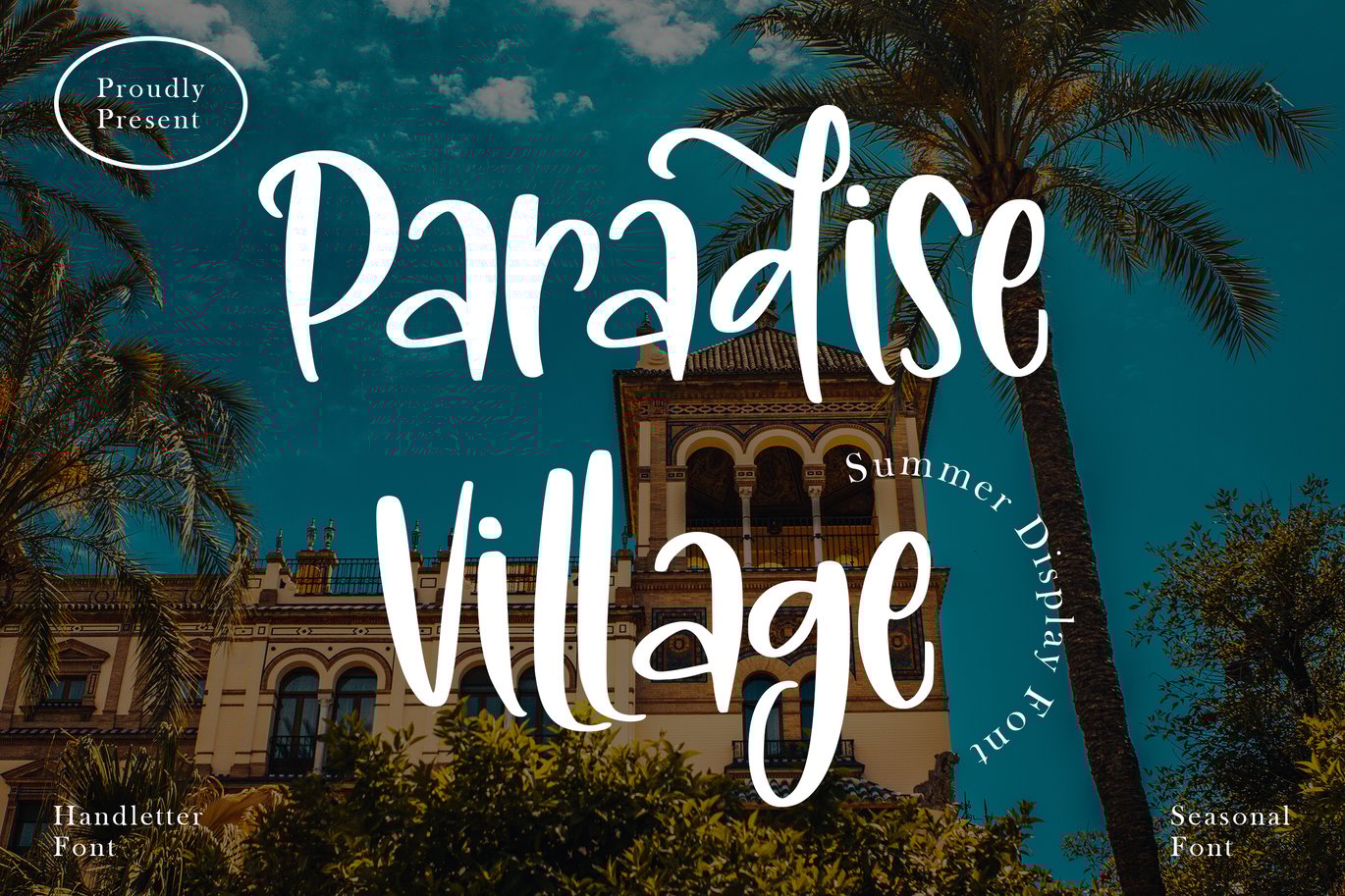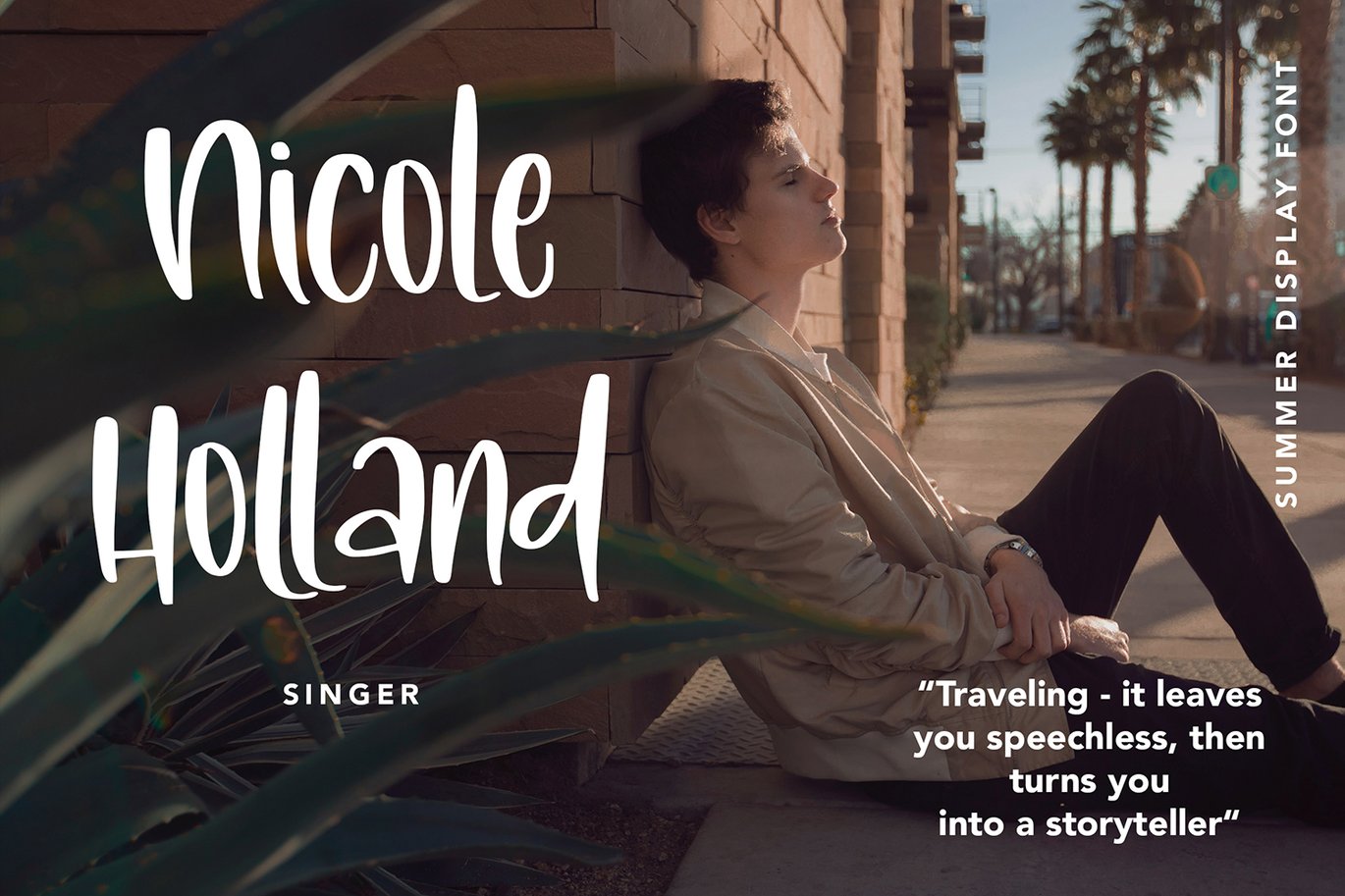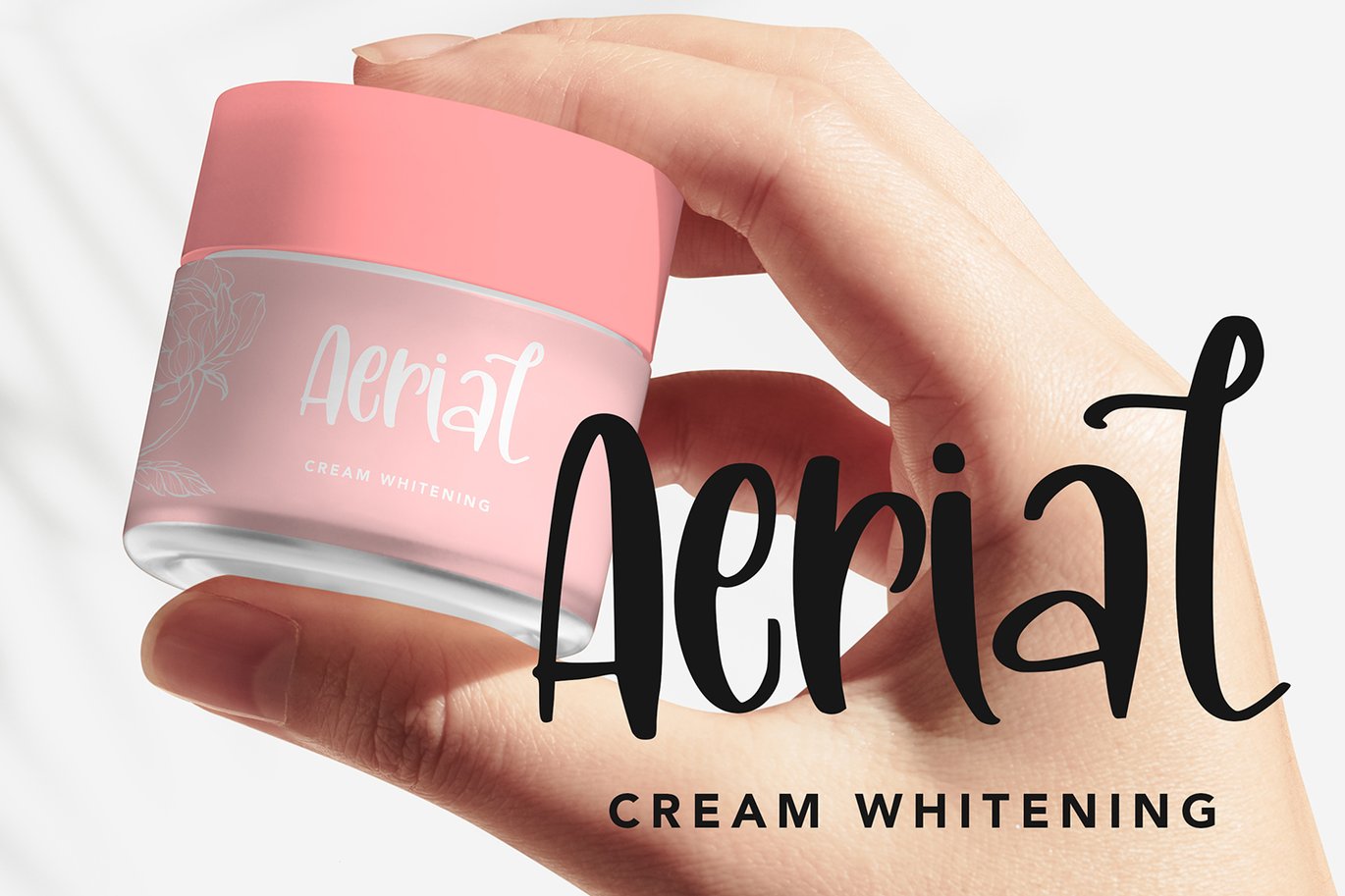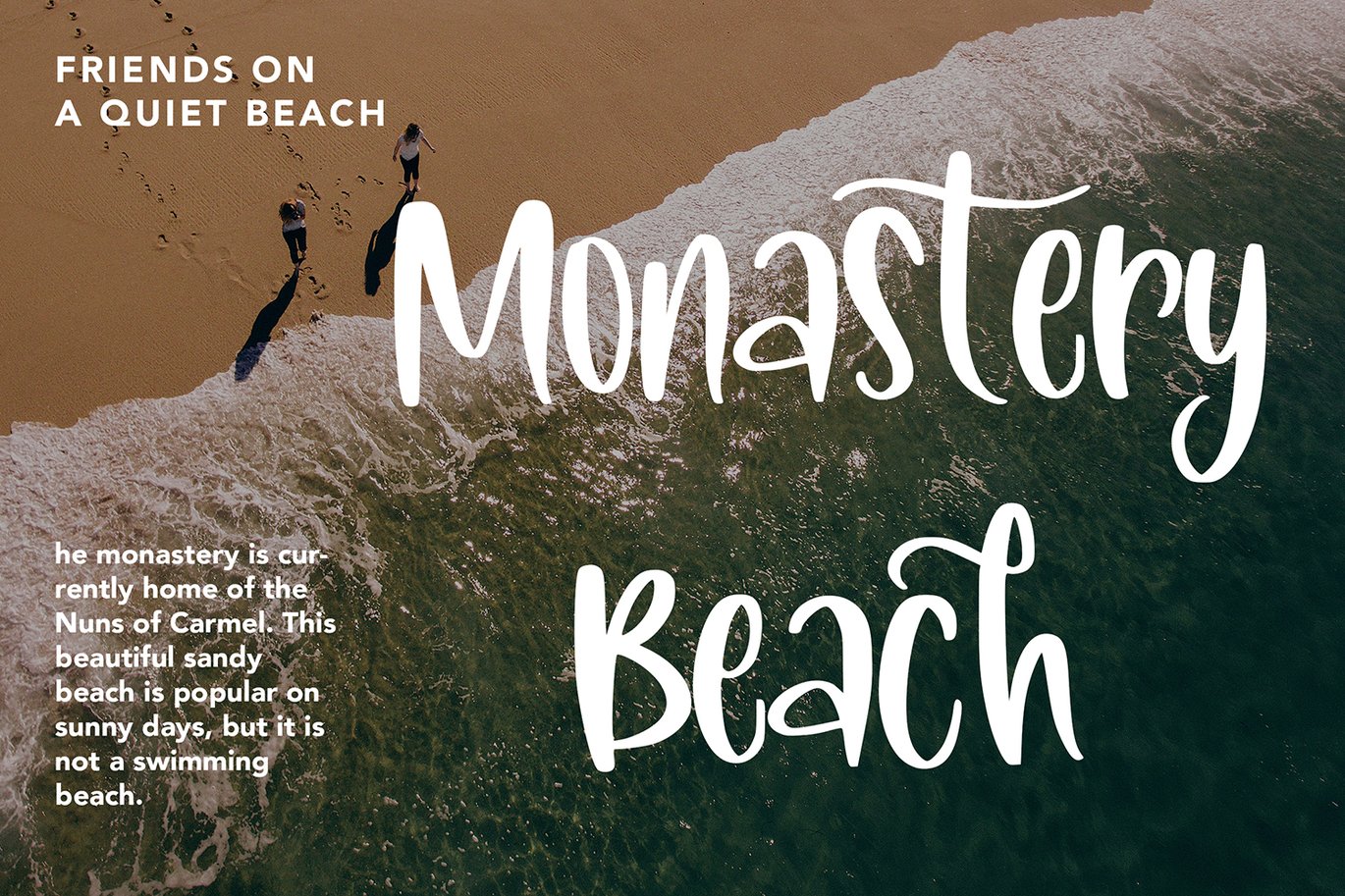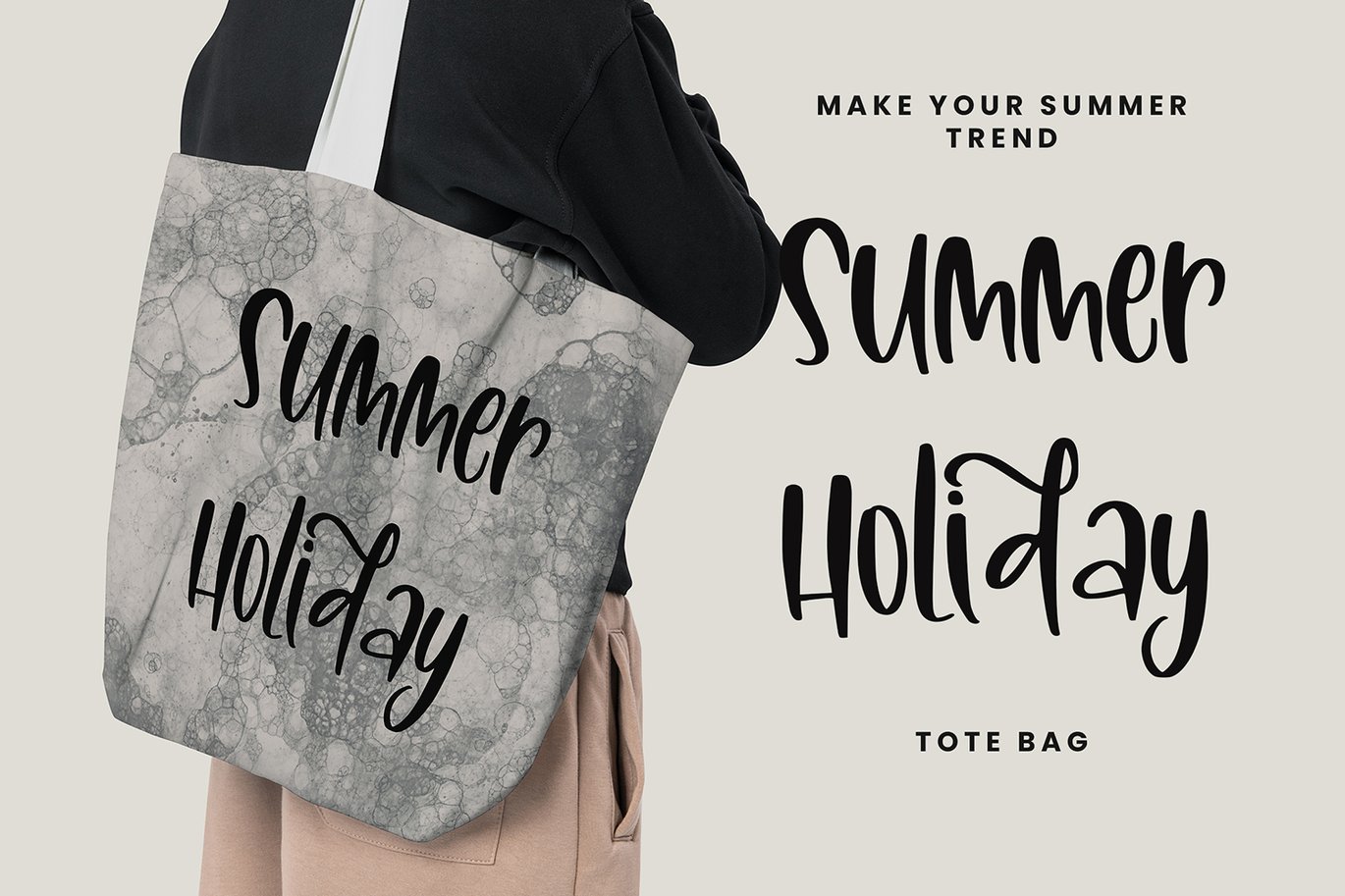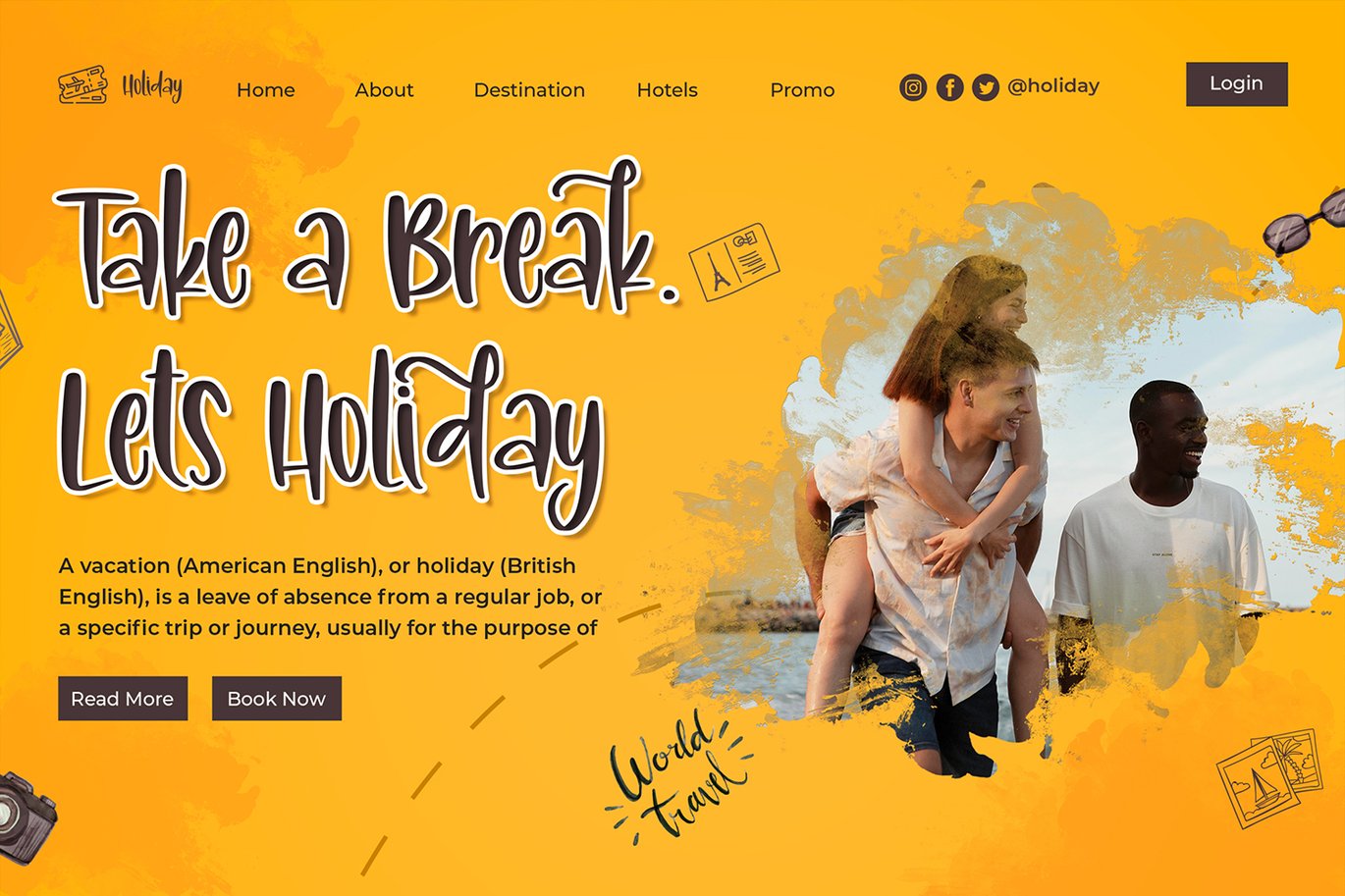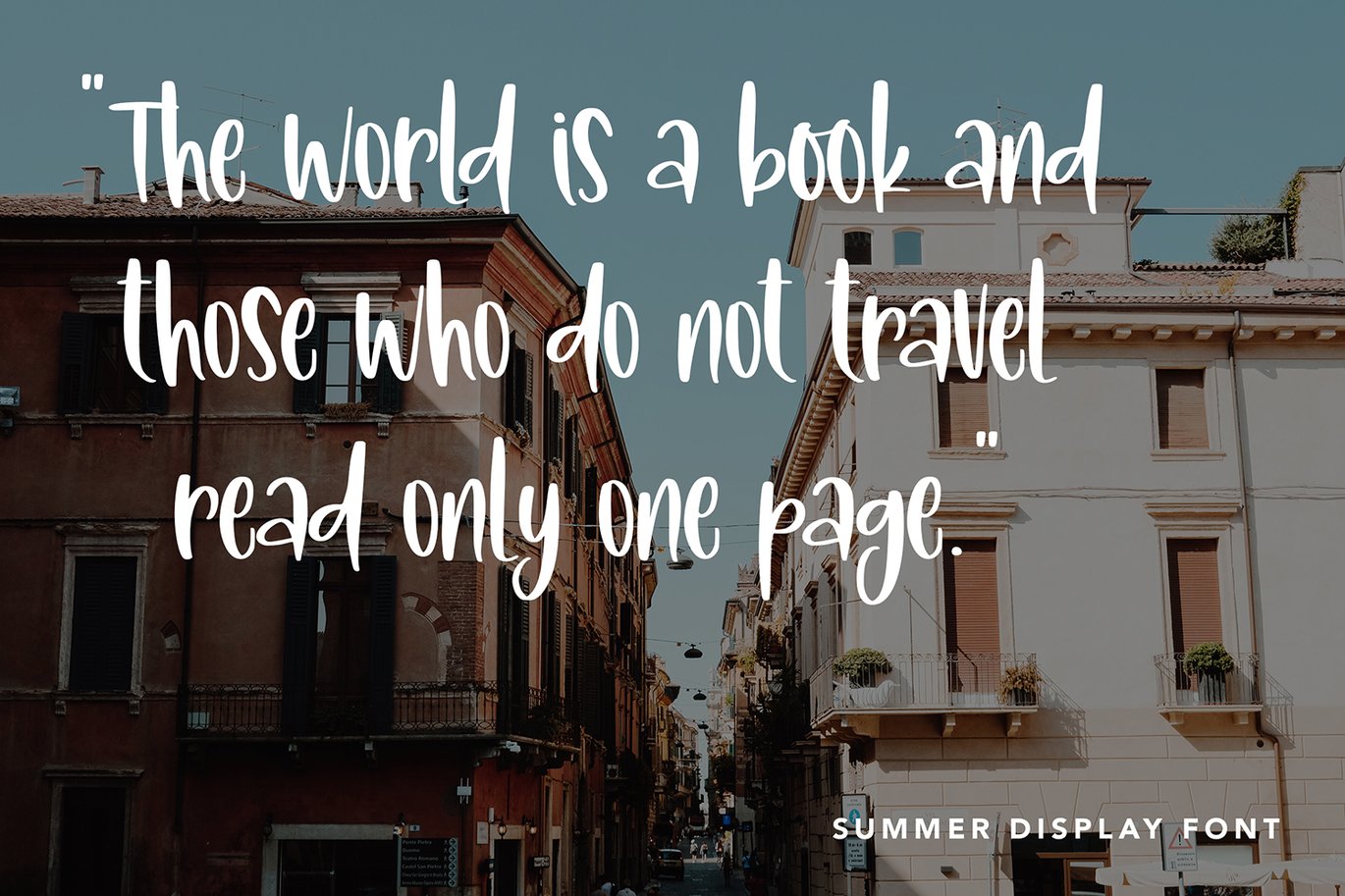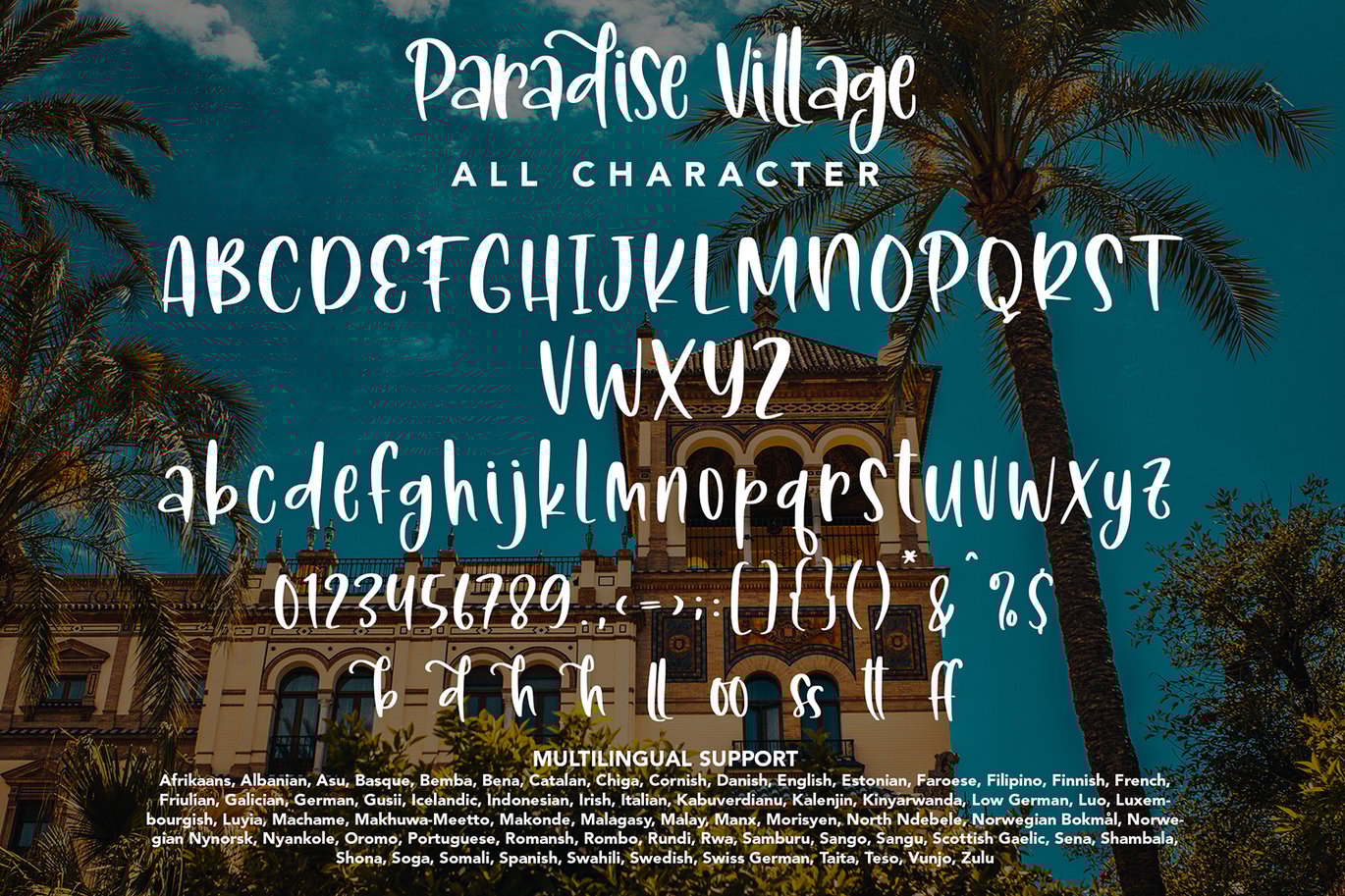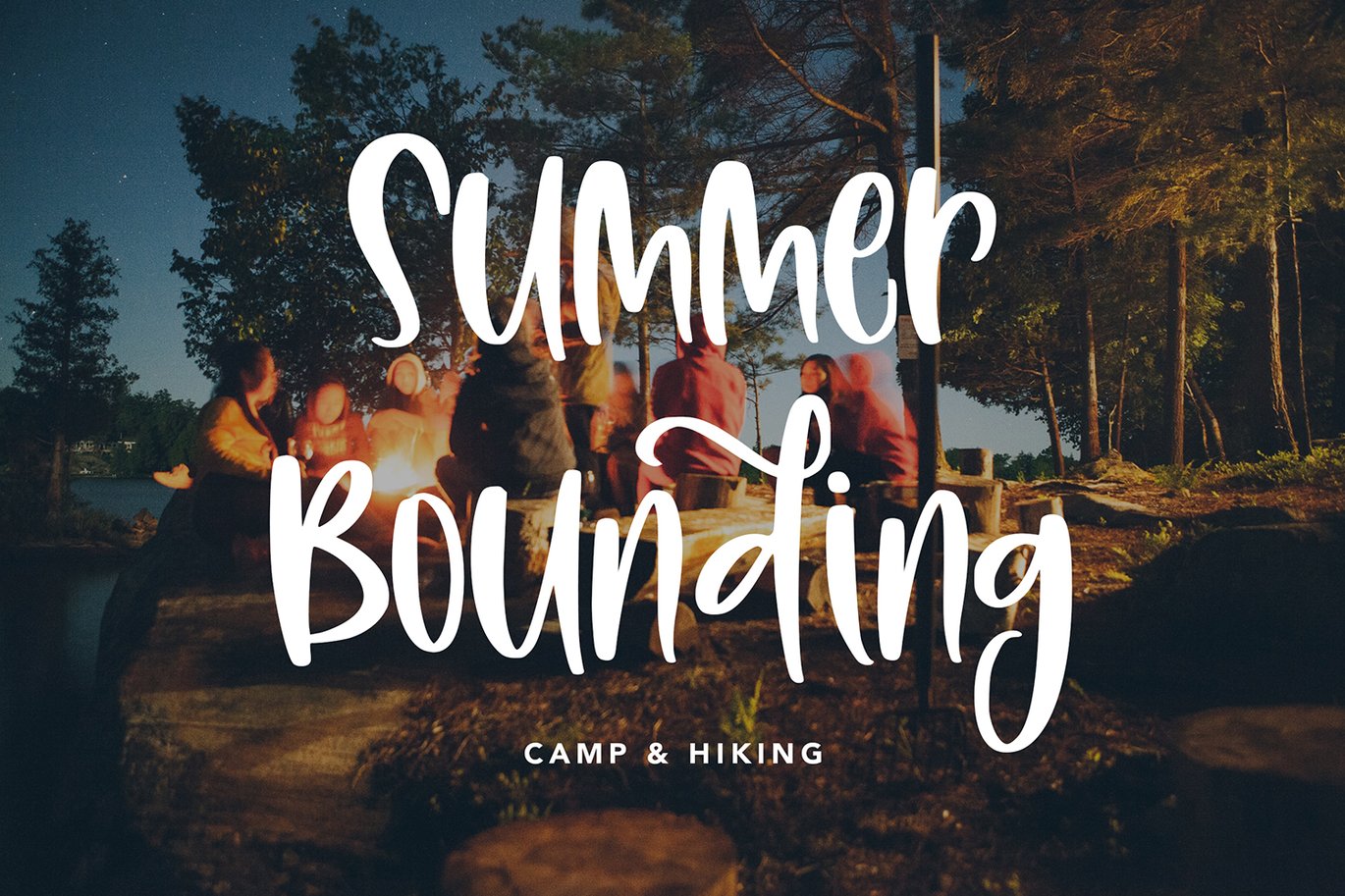
ParadiseVillage – Summer Display Font
ParadiseVillage – Summer Display Font contains a lowercase, uppercase, symbol, and also supports multi-language. There’s a lot of ligature in this font. ParadiseVillage – Summer Display Font also comes with ligatures, stylistic alternates and many more.
this font suitable for fashion, branding, catalog and other design that you want.